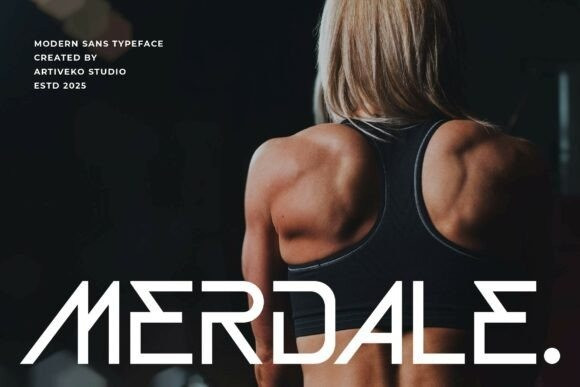
Merdale Font
Merdale Font is a modern display sans serif font with a distinctive character and artistic flair. Designed with playful curves, clean lines, and thoughtful letterform variations, Merdale brings a bold yet approachable personality to your designs. Perfect for magazine headlines, posters, business cards, product packaging, and digital branding, this font makes every word stand out with style.